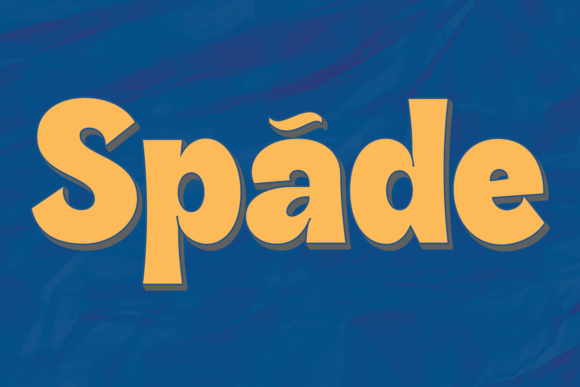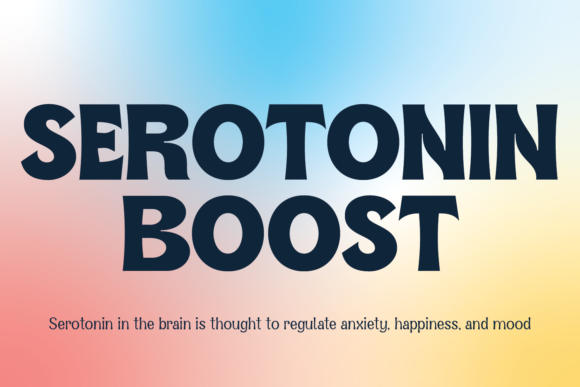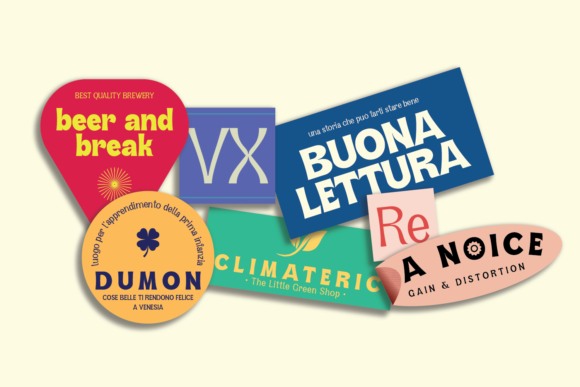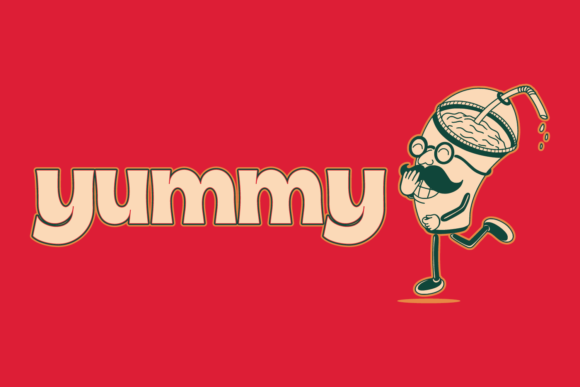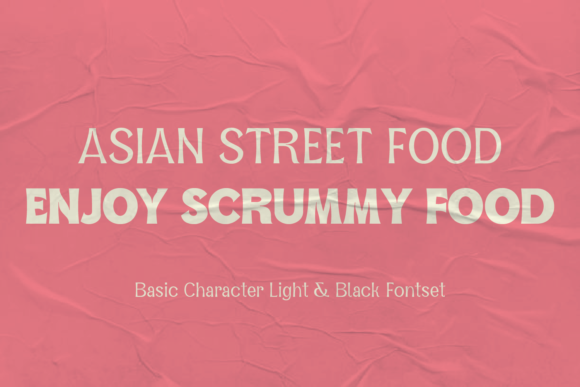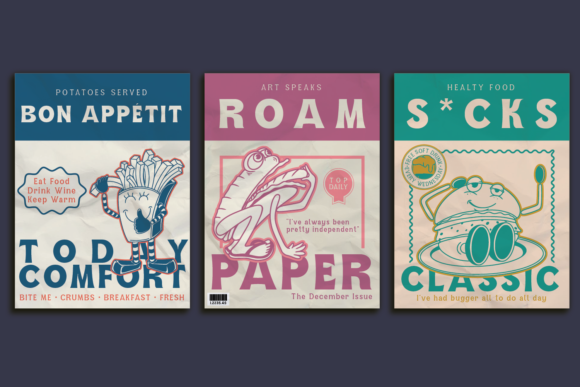
Introduction to Nezue Font
Nezue is a cool, vintage styled and unique serif font.
It is perfect for any branding project such as logos, t-shirt printing, creative products, and more .